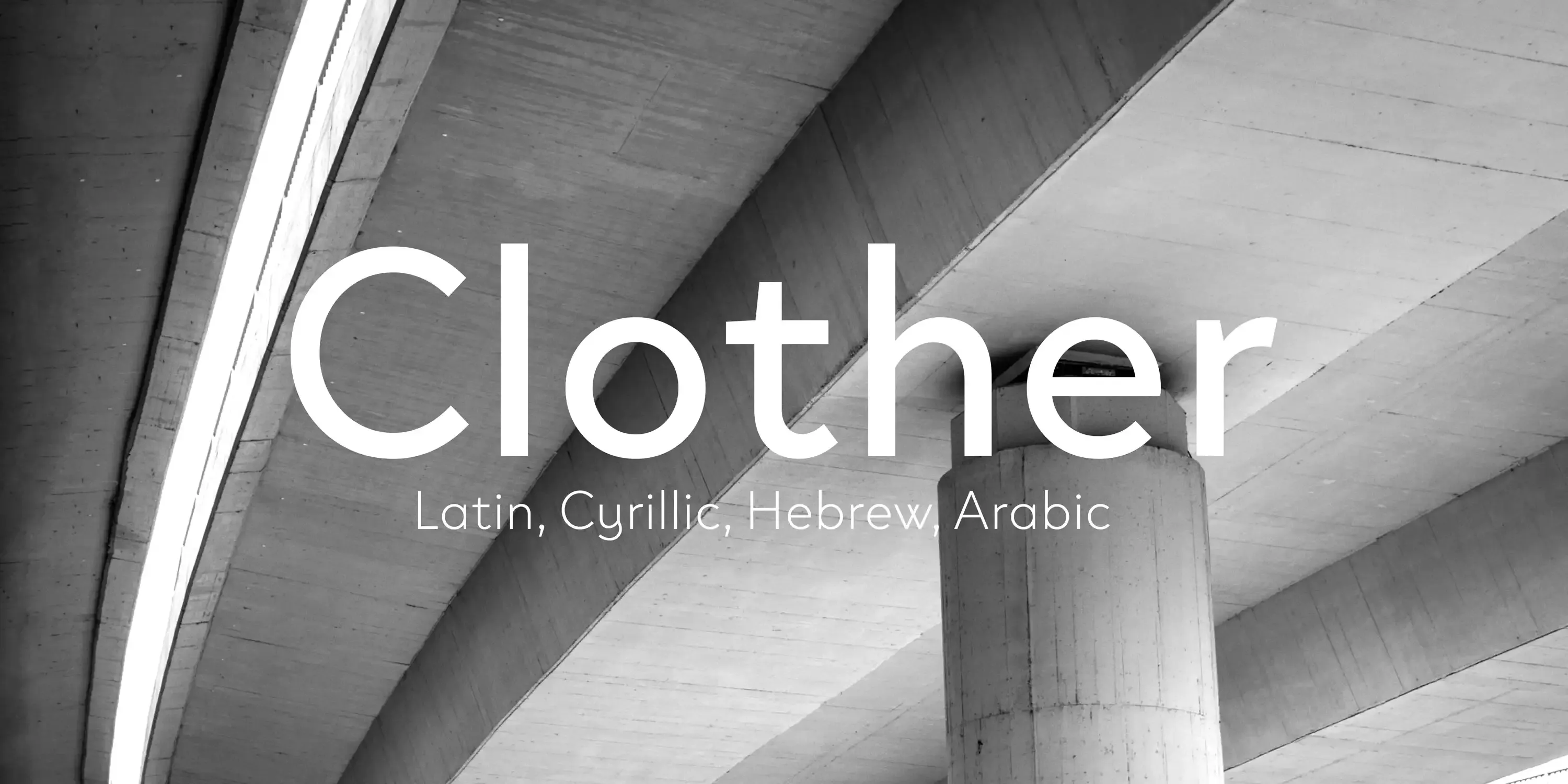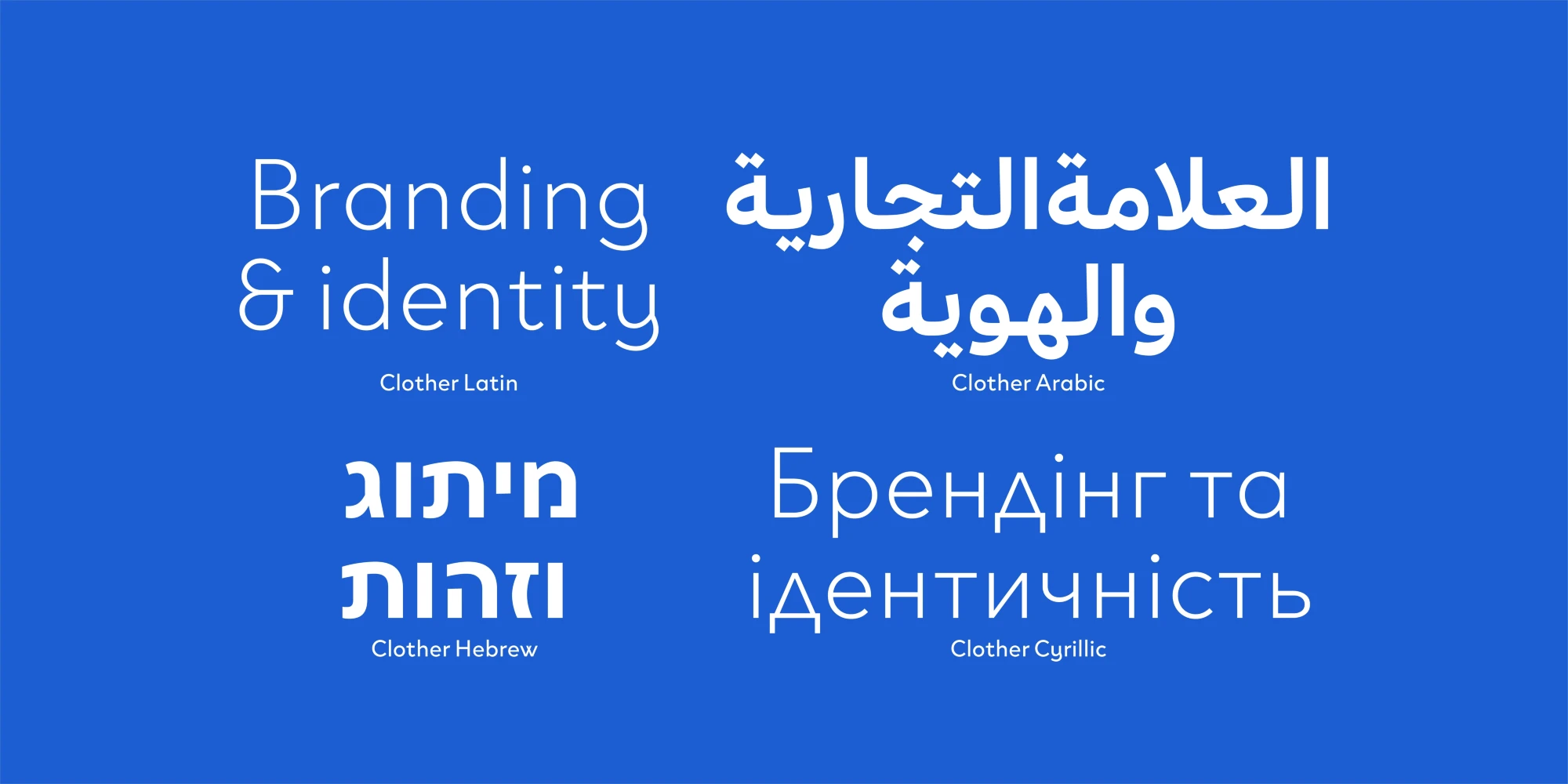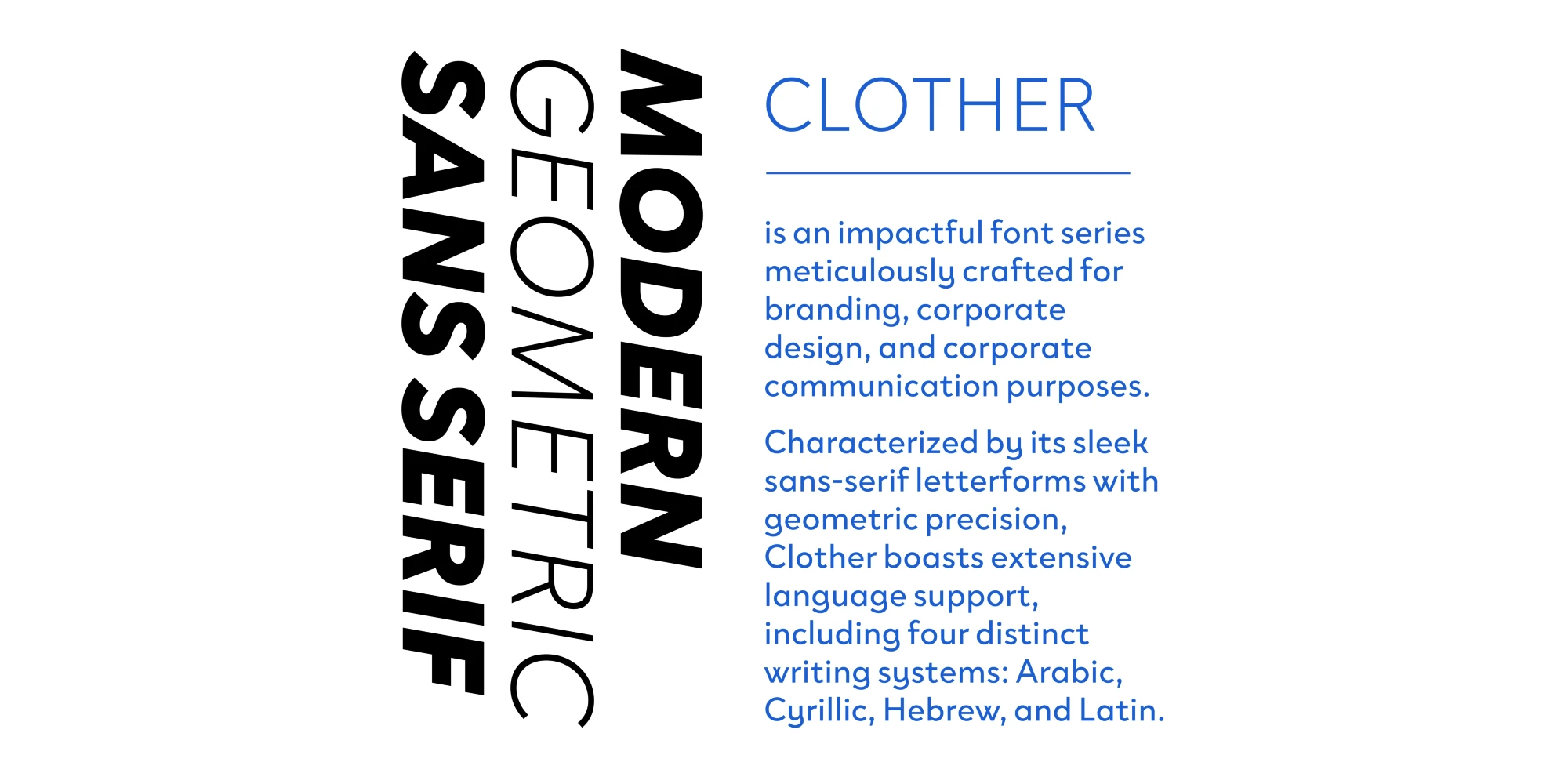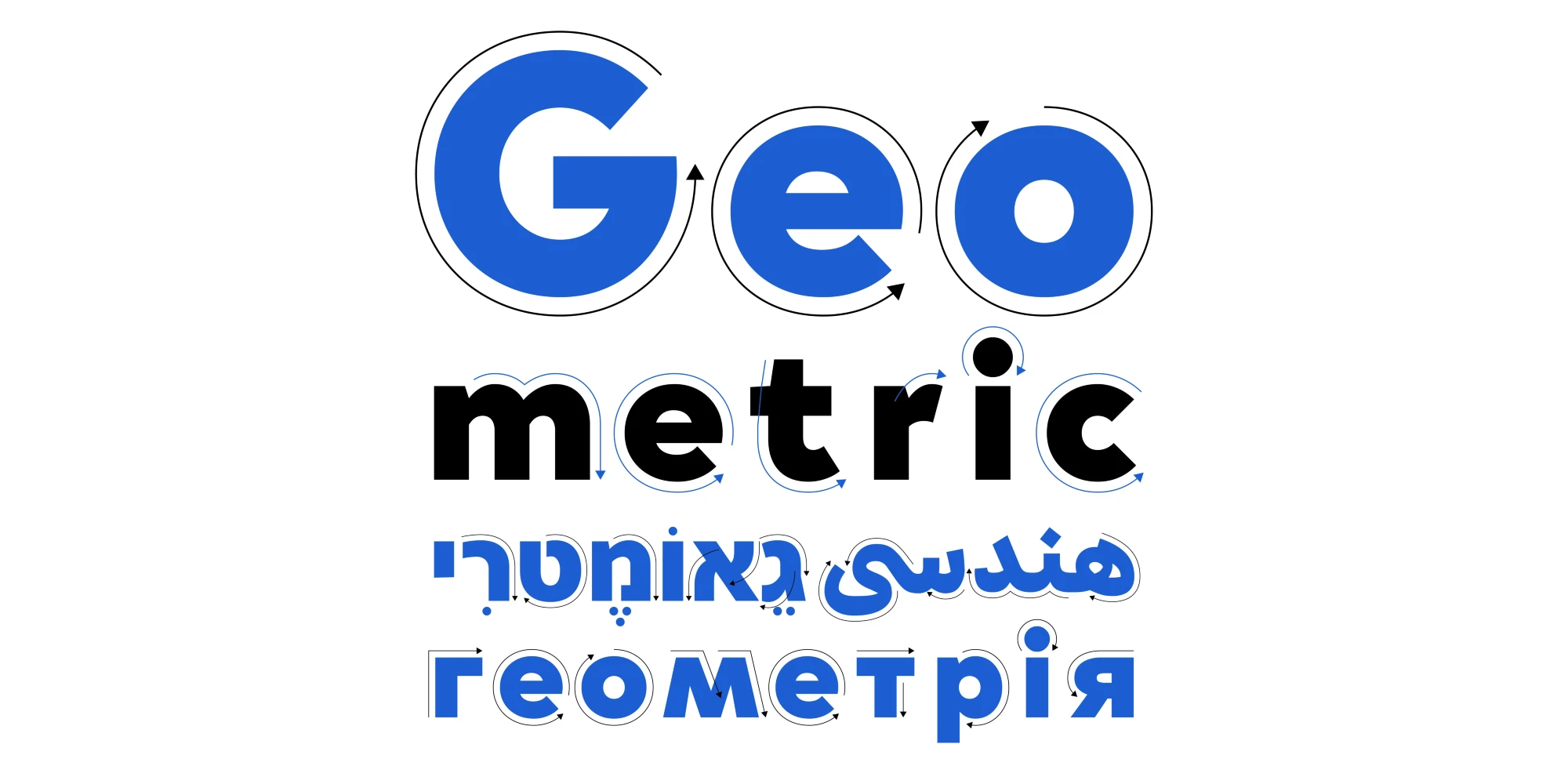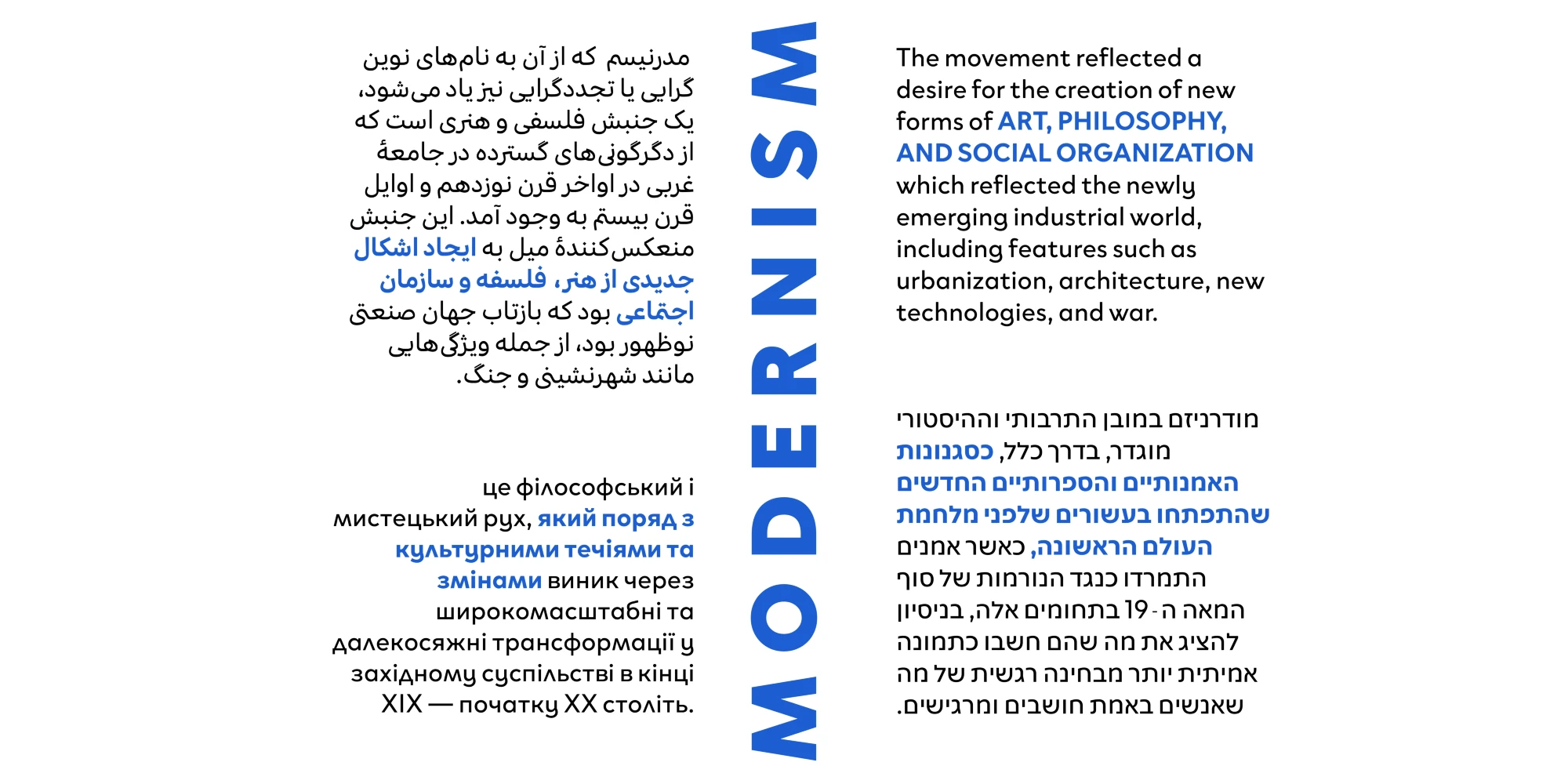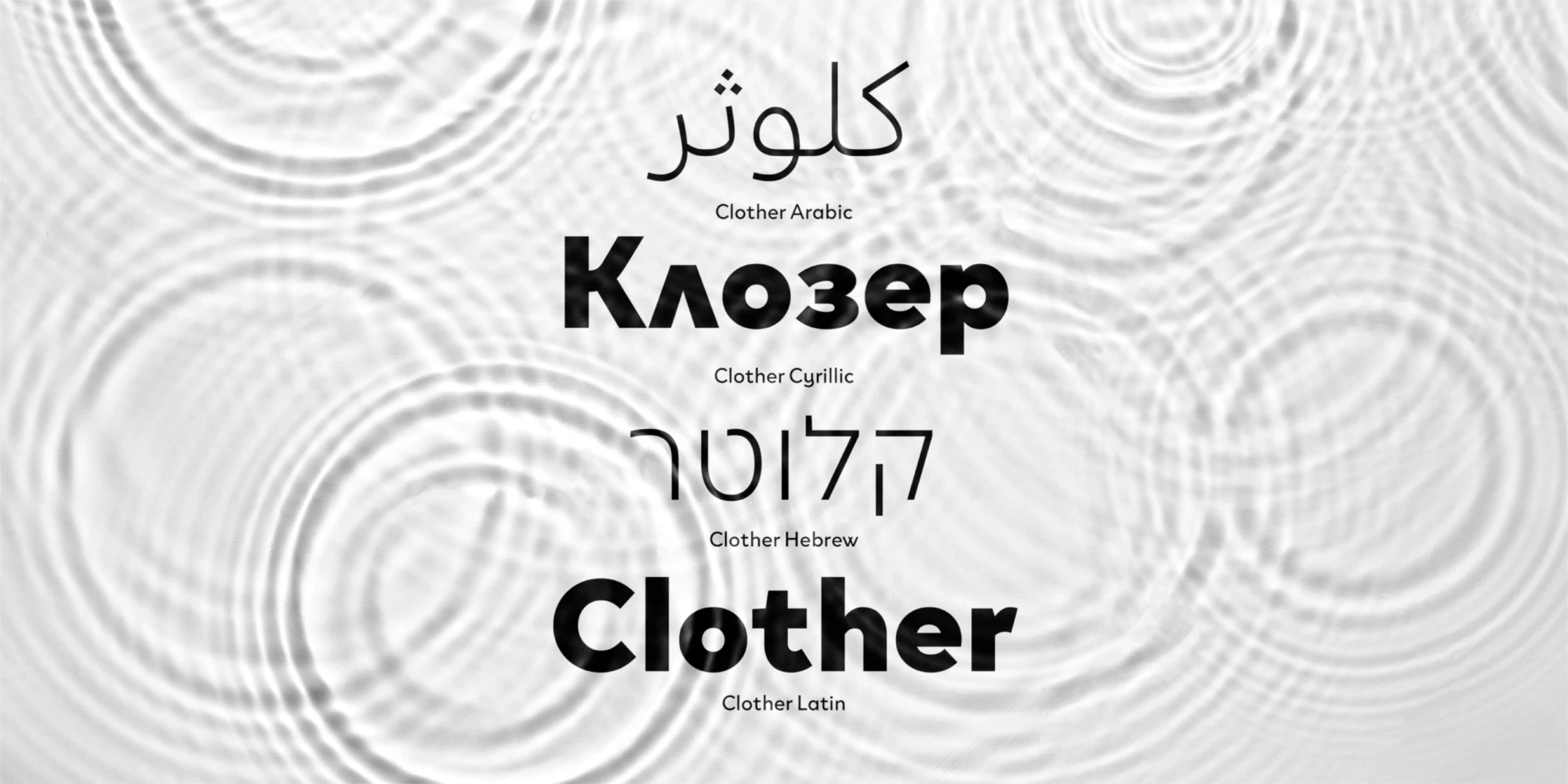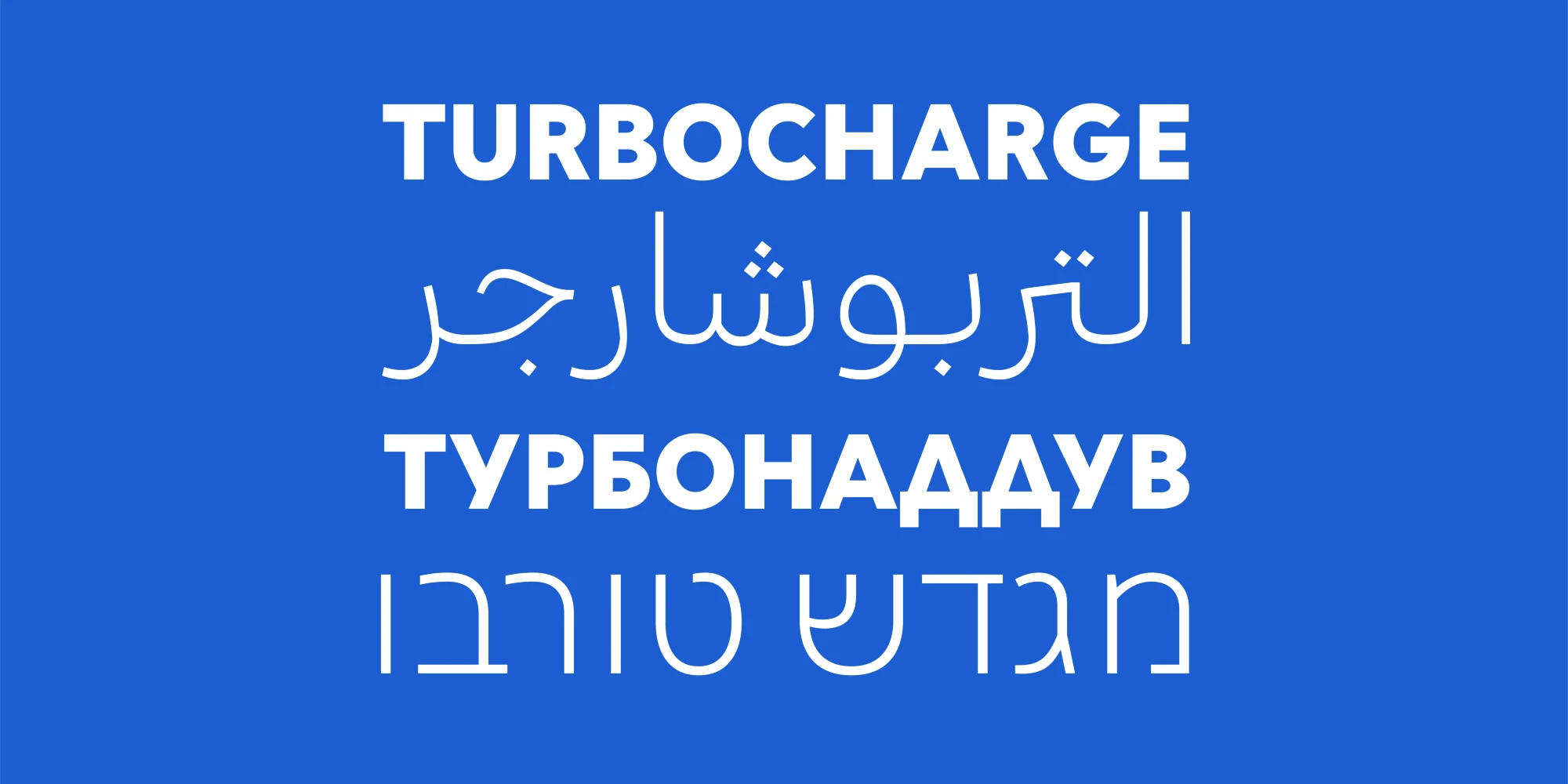
Clother Font Family
Clother is a geometric sans serif family supporting Arabic, Cyrillic, Hebrew, and Latin, designed to deliver a consistent visual identity for branding, corporate design, and communication. Thanks to details that distinguish it from similar typefaces, this cohesive graphic vocabulary enables businesses to reach global markets seamlessly. The low-contrast, almost monolinear letter shapes keep text clean and professional with a modern personality, well-suited for reports, presentations, and internal communication.
Stylistic Set 1
Fractions
Oldstyle Figures
Tabular Figures
Ordinals
Scientific Inferiors
Superscript
Subscript
Numerators
Denominators
Case-Sensitive Forms
![Clother font by Black[Foundry] — the word “Clother” in Latin, Arabic, Cyrillic, and Hebrew scripts, set against a background of white ripples.](https://typographer.io/1/assets/blk:clother/banner-6.webp:size(2000,1000)?62a6)
![Clother font by Black[Foundry] — the word “TURBOCHARGE” in upright sans serif Latin capitals, an Arabic word, a Cyrillic word, and a Hebrew word, all in a low-contrast sans serif.](https://typographer.io/1/assets/blk:clother/banner-7.webp:size(2000,1000)?22d6)